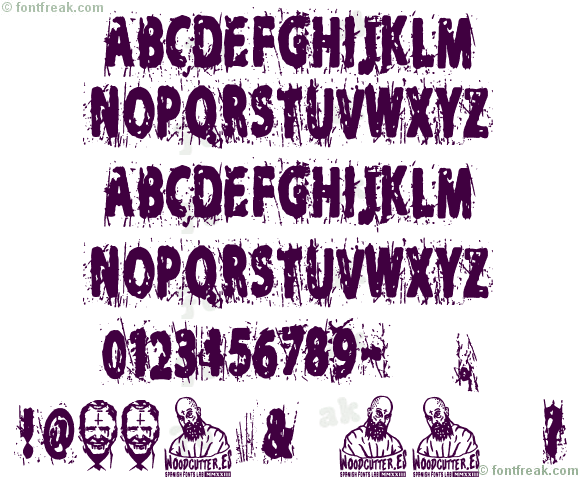
The Biden's Nightmare
About The Biden's Nightmare
The Biden's Nightmare font by woodcutter Manero is a striking display typeface that captures attention with its unique and edgy aesthetic. This decorative font features a bold, distressed style characterized by uneven stroke weights and a rugged texture that evokes a sense of chaos and intensity. The letters exhibit a high contrast between thick and thin strokes, giving them a dynamic presence that stands out in any design context. The spacing is intentionally loose, allowing the irregular shapes of the letters to breathe and maintain visual impact.
Ideal for a variety of creative projects, The Biden's Nightmare font is particularly well-suited for movie posters, punk rock album covers, and any design that seeks to convey a rebellious spirit. Its distinctive style also makes it a fantastic choice for merchandise aimed at niche audiences, such as T-shirts and stickers. Graphic designers and content creators will find this font an excellent addition to their toolkit, offering a bold option for headlines, event flyers, and promotional materials.
What sets The Biden's Nightmare font apart is its ability to convey a strong emotional response while remaining versatile in various applications. Its raw, artistic quality empowers designers to push boundaries and explore new creative avenues. For anyone looking to make a bold statement, The Biden's Nightmare font free download is an opportunity not to be missed. Embrace the chaos and let your designs speak volumes with this unforgettable typeface.